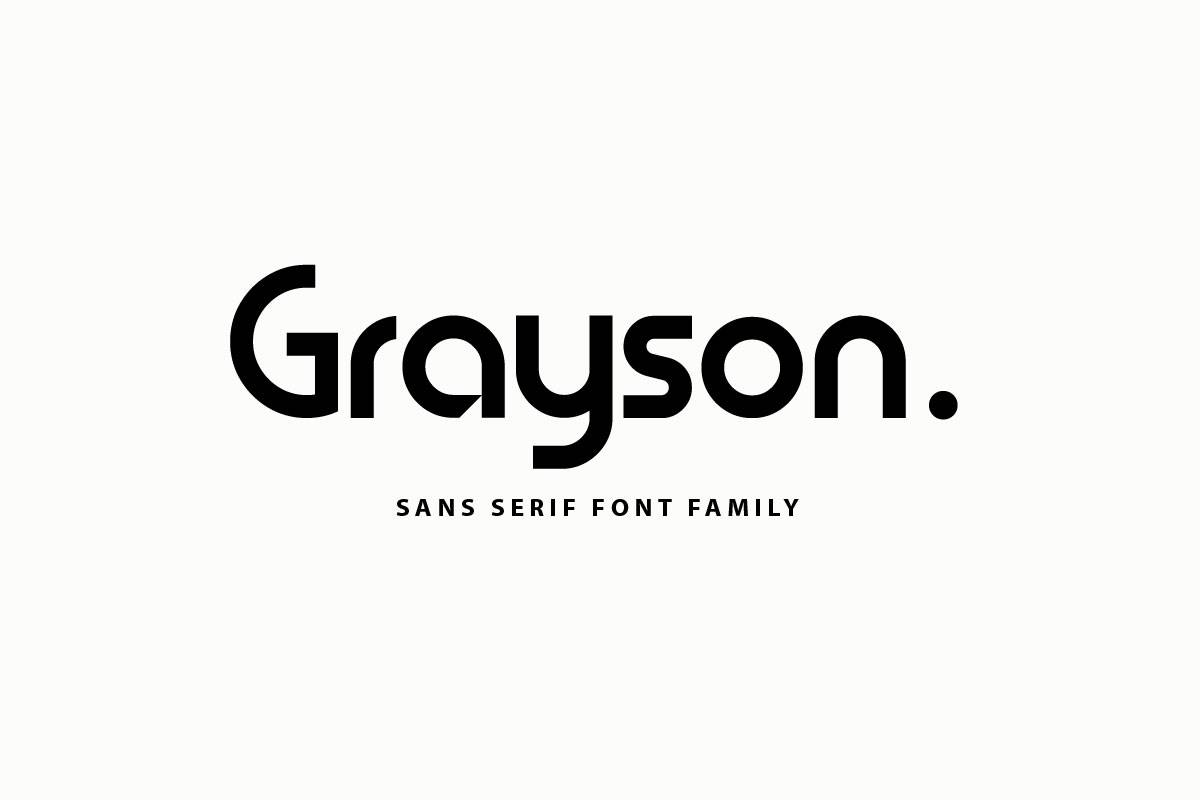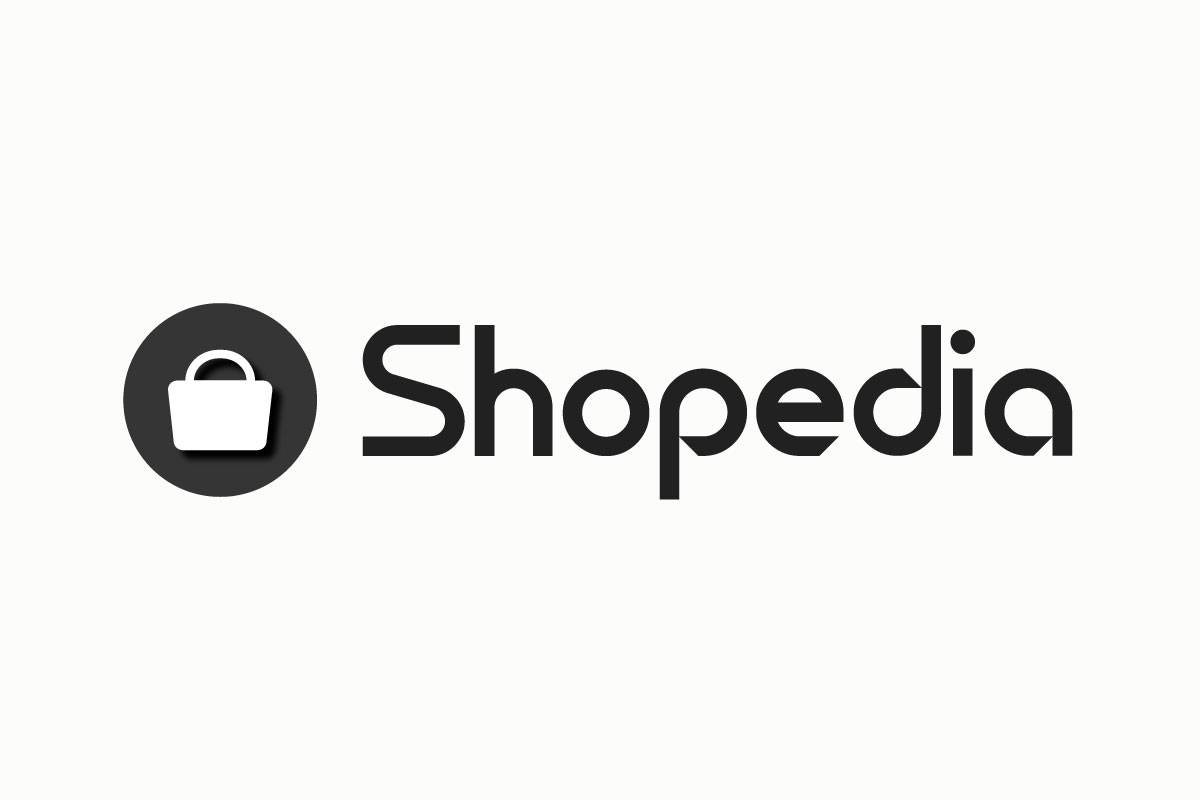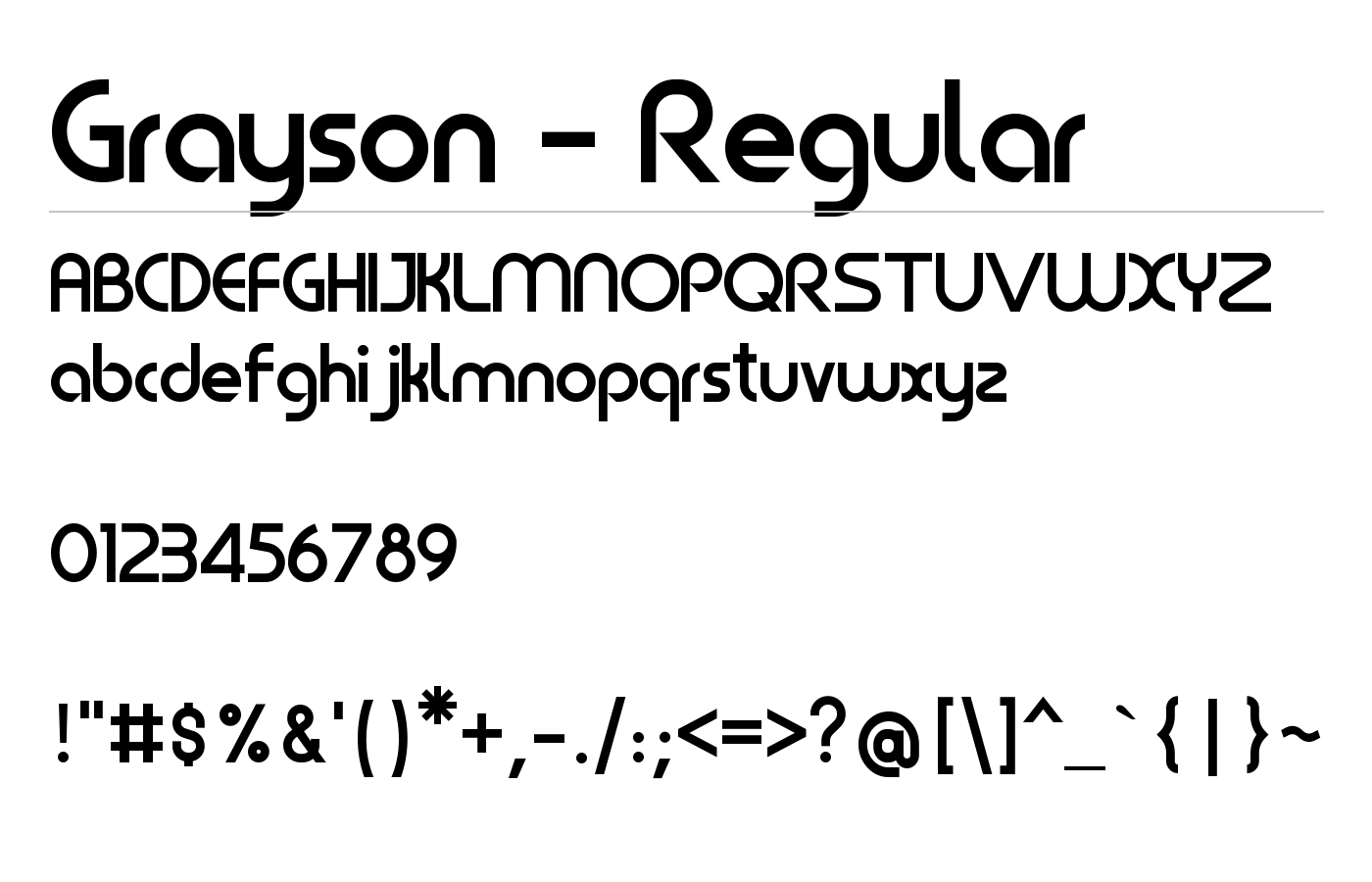
Grayson is a modern sans serif font with a clean, geometric style and medium weight that gives it a balanced presence. Its unique letterforms, including rounded edges and distinctive shapes for characters like "Q" and "R," create a sleek yet approachable feel, making it ideal for contemporary branding, editorial headlines, and digital use where a stylish but readable typeface is needed.
Grayson Font
About Grayson Font
| Font family | Grayson Font |
| Release date | 2019-11-15 |
| Designer | @faldykudo |